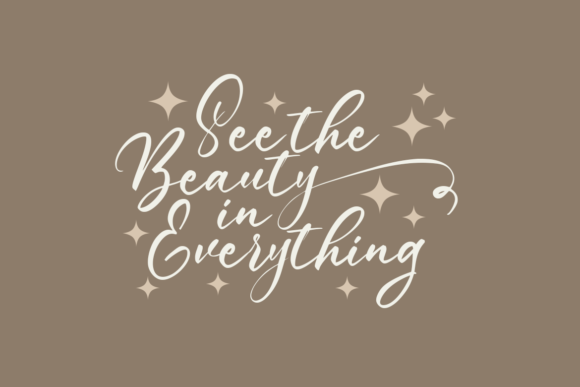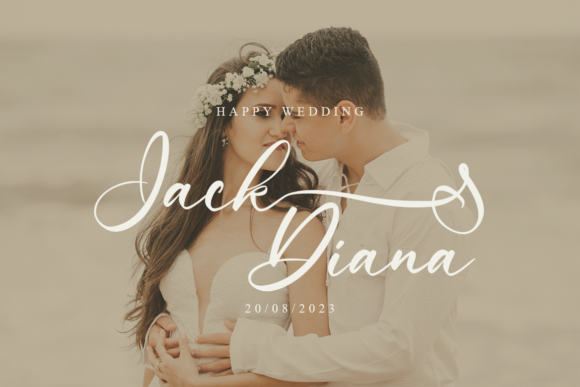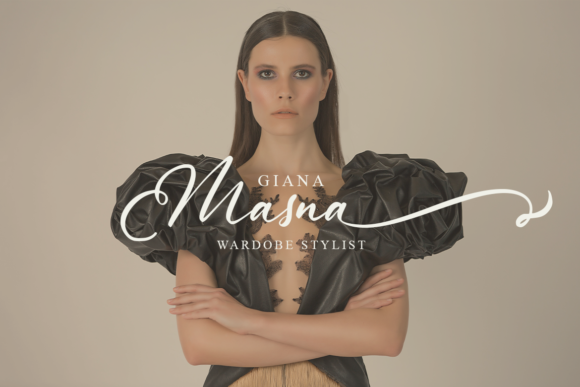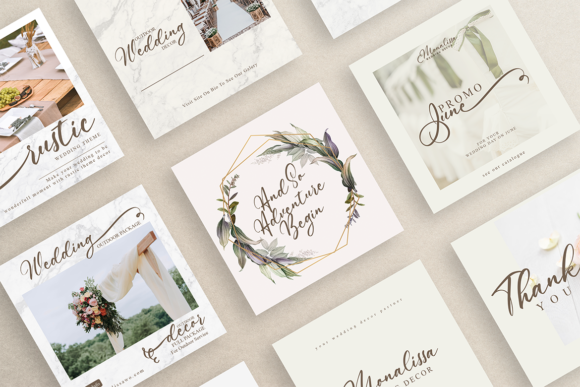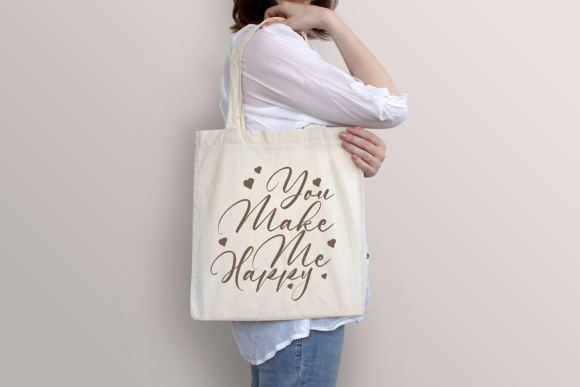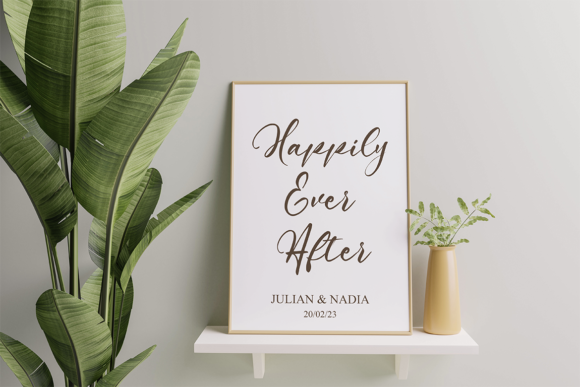
Introduction to Moonshine Calligraphy Font
Moonshine Calligraphy is an enchanting handwritten font.
This versatile script font has a wide spectrum of applications ranging from greeting cards to headlines Moonshine Calligraphy is PUA encoded which means you can access all glyphs and swashes with ease.
Key Features of Moonshine Calligraphy Font
Why Choose Moonshine Calligraphy Font?
Moonshine Calligraphy Font offers exceptional quality and versatility, making it a valuable addition to your design toolkit. Whether you’re creating for personal projects or commercial use, Moonshine Calligraphy Font delivers professional results.